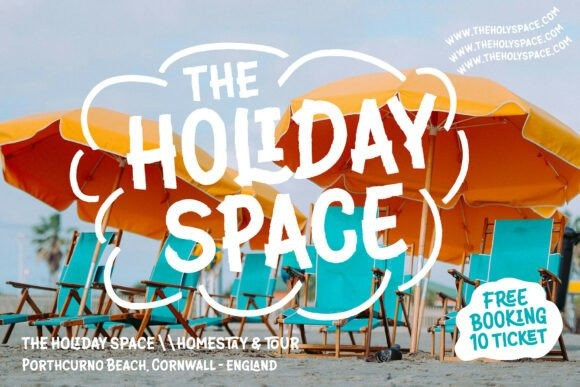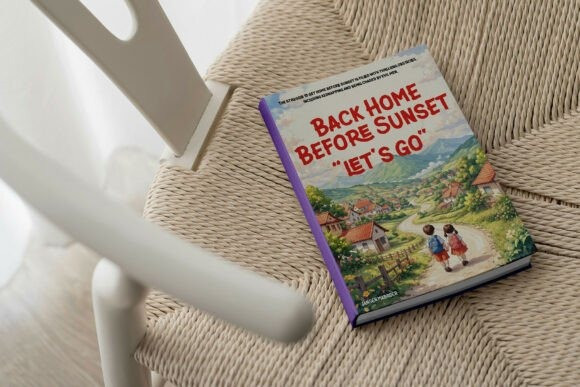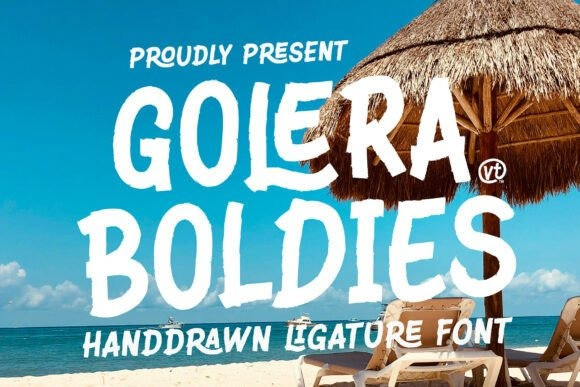
Golera Boldies Font
Golera Boldies Font a unique handrawn sans serif font crafted to bring a natural, organic feel into your design projects. Golera Boldies captures the essence of authentic hand-drawn strokes, carefully designed to mimic real handwriting with subtle imperfections, making every letter feel alive and expressive. Perfect for a wide range of design needs such as branding, packaging, logos, social media, posters, and editorial layouts, this font delivers both readability and personality in one complete typeface.
Whether you’re designing for a modern brand or a handcrafted aesthetic, this font will elevate your work with its handmade charm and professional quality.